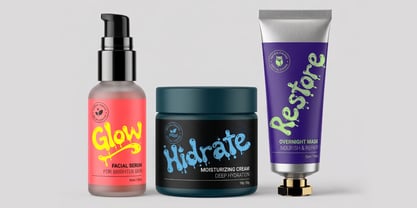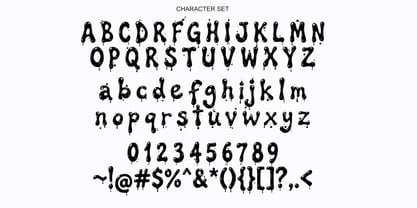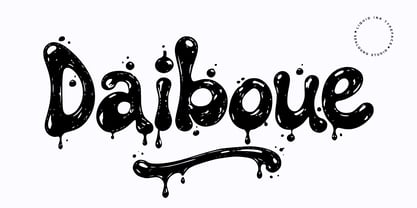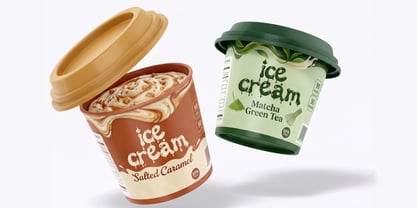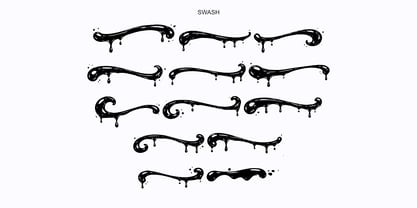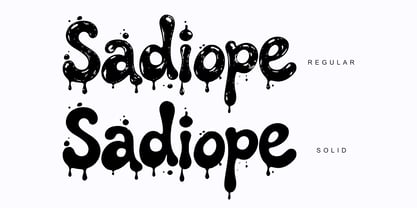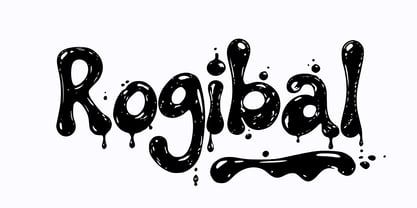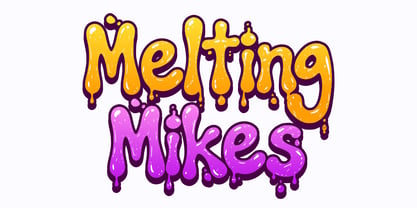
Daiboue
Daiboue is a unique and expressive liquid ink typeface inspired by the natural flow of dripping fluid. Each letter is crafted with bold, rounded, and dynamic shapes, creating a playful yet visually strong appearance.
This typeface is perfect for designs that need to stand out, such as logos, posters, branding, packaging, headlines, and creative content that calls for a fun and edgy touch. Its organic and fluid form brings a modern, lively personality to any project.
Features:
• Uppercase & lowercase
• Numbers & punctuation
• Unique swash
Daiboue gives you the freedom to explore bold creativity with its striking liquid style and distinctive character.